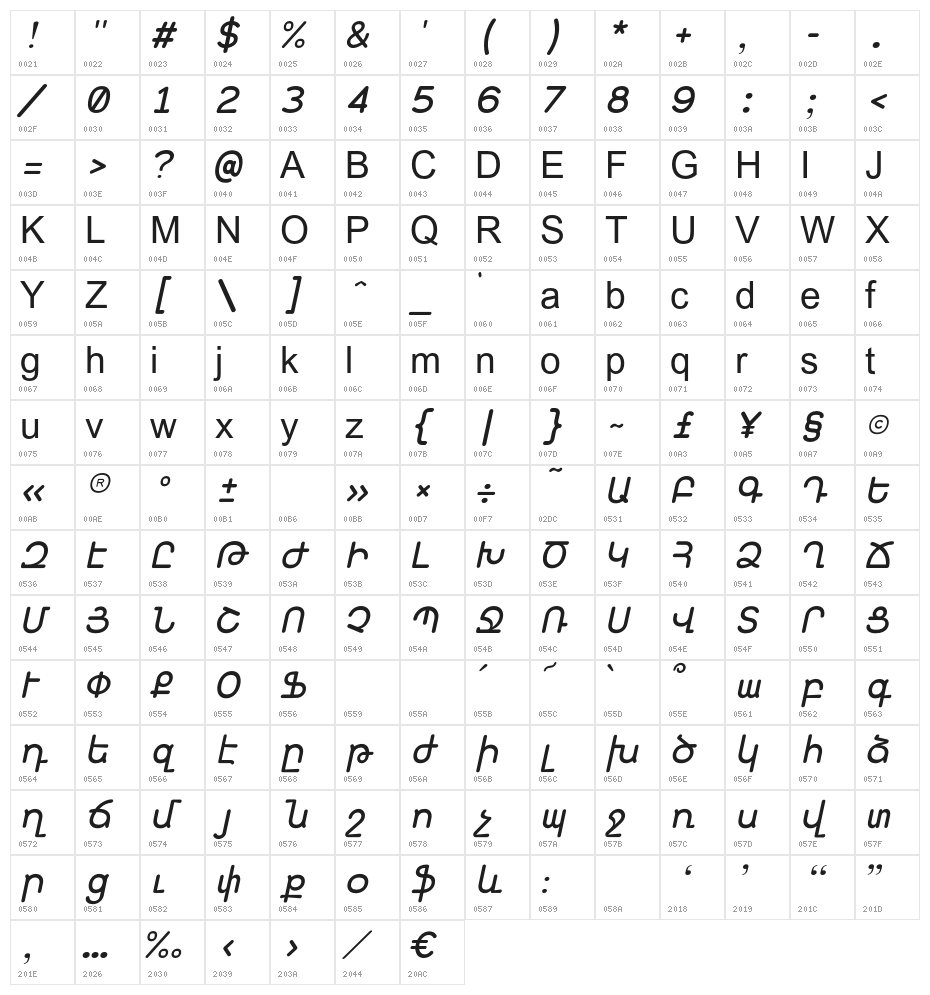
Grqalir-Italic Font
Grqalir-Italic Description
This font features a clean and modern sans-serif design with a slight italic slant, giving it a dynamic and contemporary feel. The characters are well-proportioned with consistent stroke widths, providing a balanced and harmonious appearance. The uppercase letters are bold and assertive, while the lowercase letters maintain a friendly and approachable look. The numerals are clear and easy to read, making them suitable for various applications. Special characters are included, ensuring versatility in usage. The overall design is sleek and professional, making it ideal for both digital and print media.
| Proposed Projects | Ideal for branding, advertising, web design, and editorial layouts. |